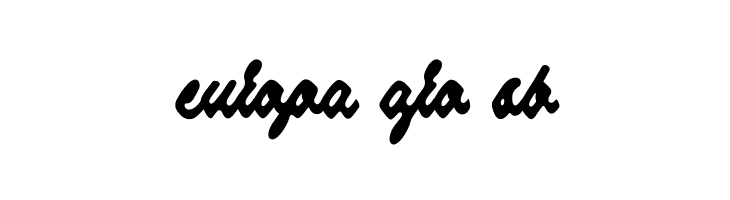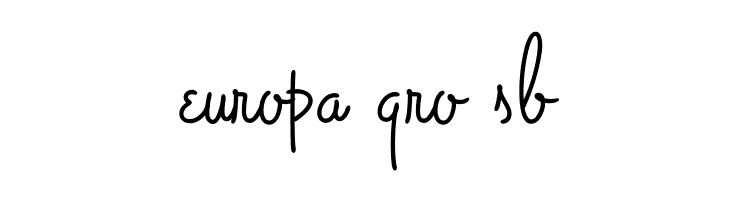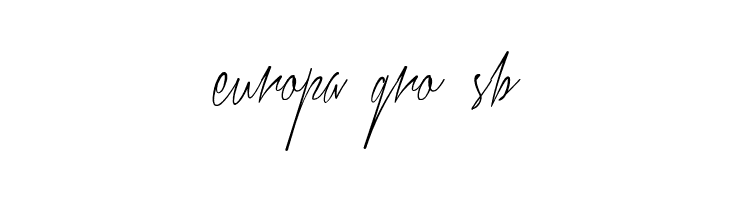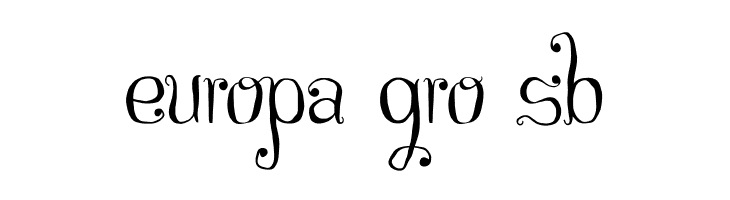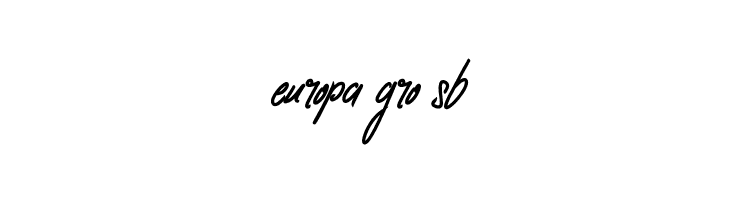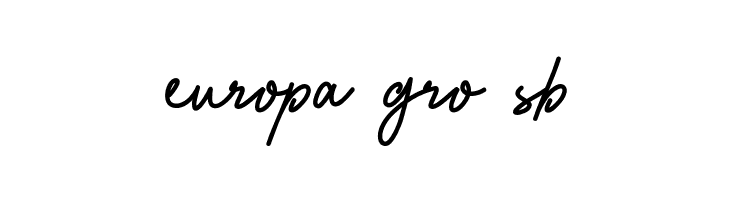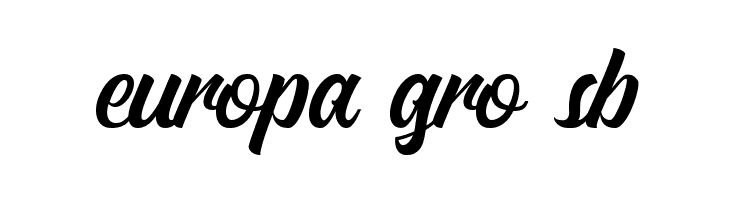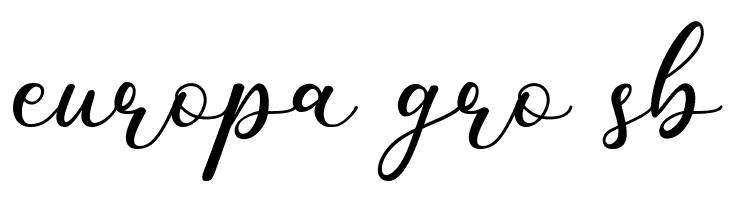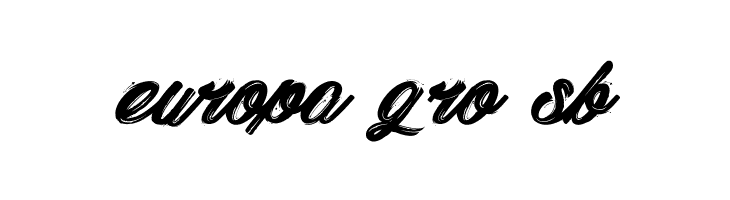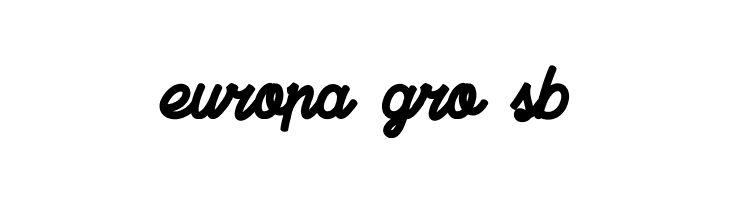
A bold, cursive script font with a playful and energetic style.
A playful, handwritten font with tall uppercase and fluid lowercase letters.
A dynamic, thin-stroked font with elegant, expressive forms.
A whimsical and decorative font with elegant swirls and curls.
A dynamic and elegant script font with flowing, cursive letterforms.
A cursive, handwritten-style font with elegant, flowing strokes.
A bold, cursive script font with fluid, interconnected letters.
A graceful and elegant script font with flowing cursive letters.
A bold, cursive font with dynamic, sweeping strokes and a brush-like appearance.
A bold, cursive script font with a handwritten, elegant style.